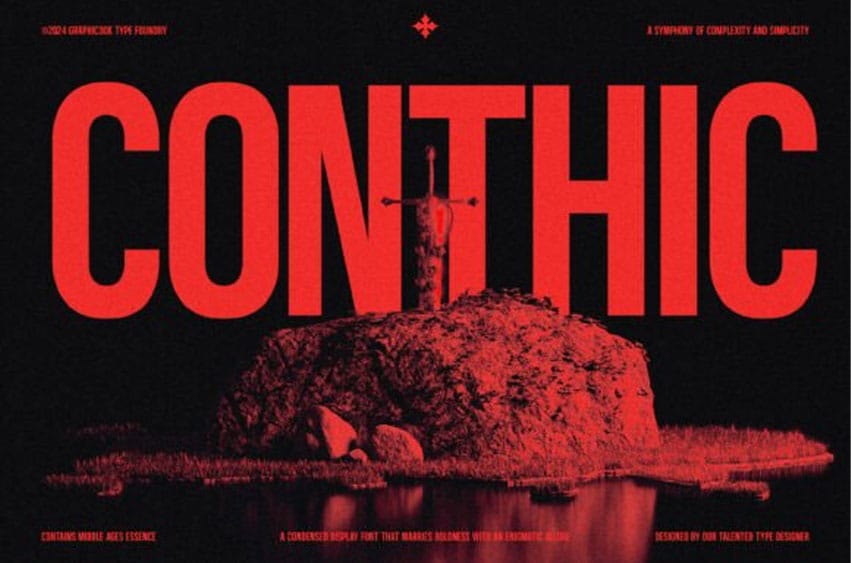
Conthic Font is a striking condensed display font that blends medieval strength with modern minimalism.
With towering letterforms and razor-sharp presence, Conthic commands attention in posters, movie titles, book covers, game interfaces, and branding projects that need to evoke power, mystery, and legacy. Inspired by ancient symbolism and cinematic grandeur, this typeface is your go-to for bold designs that leave a lasting impression.